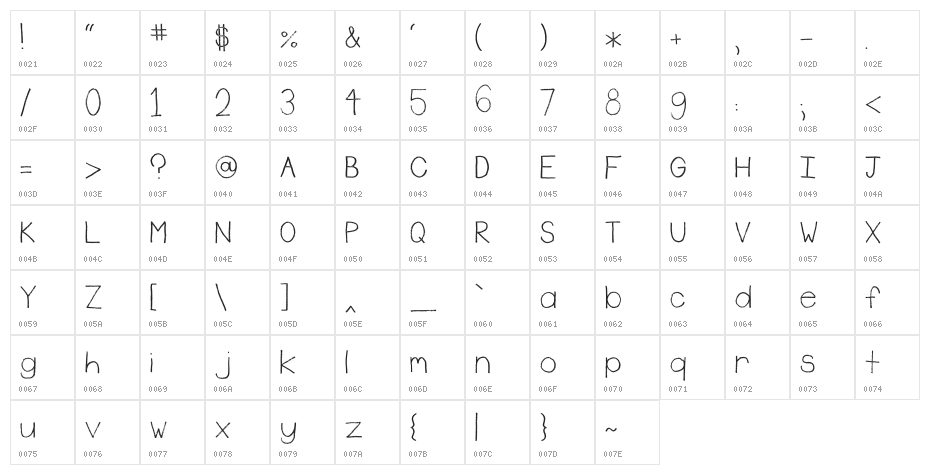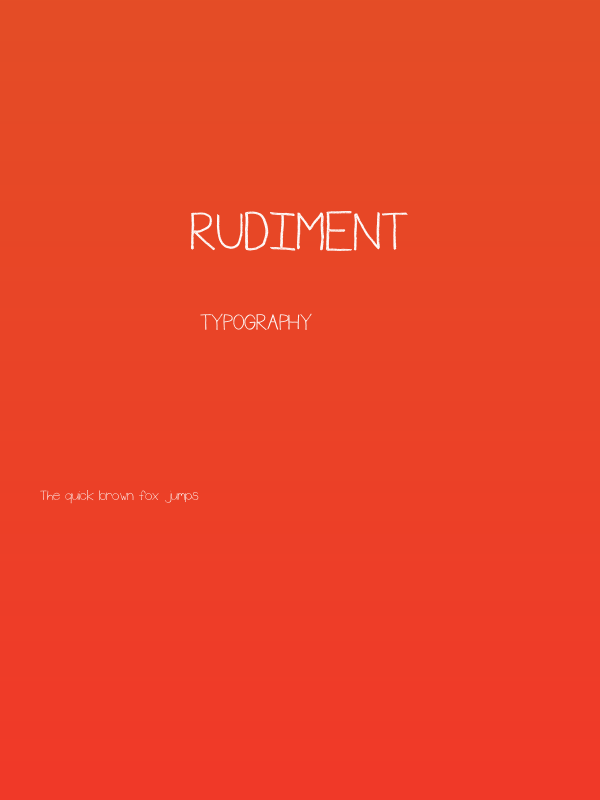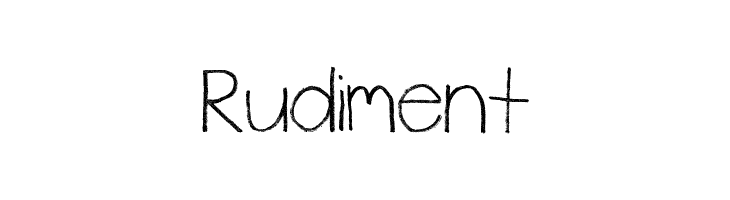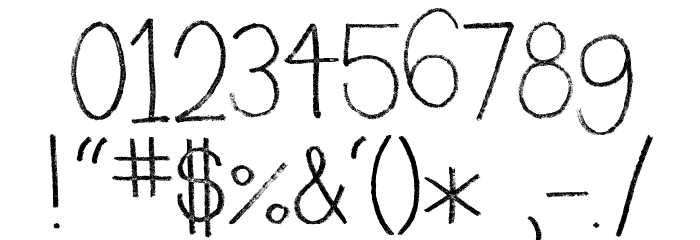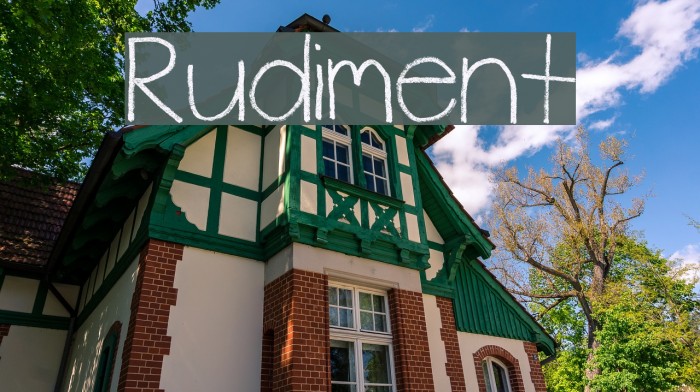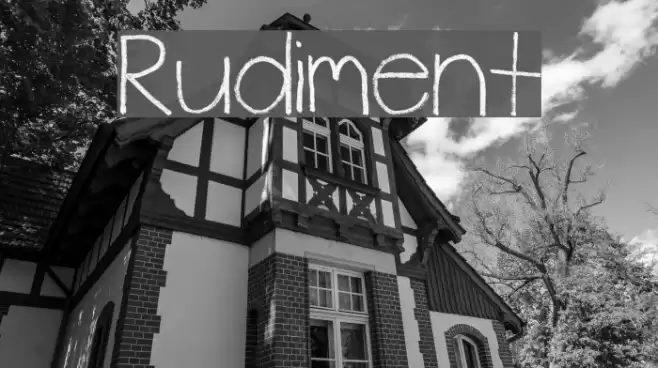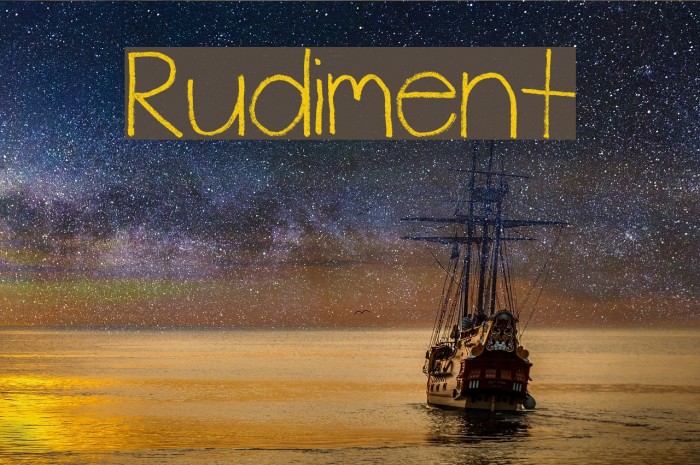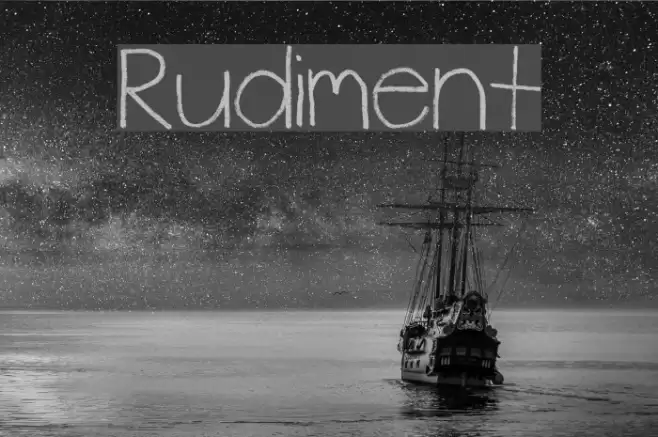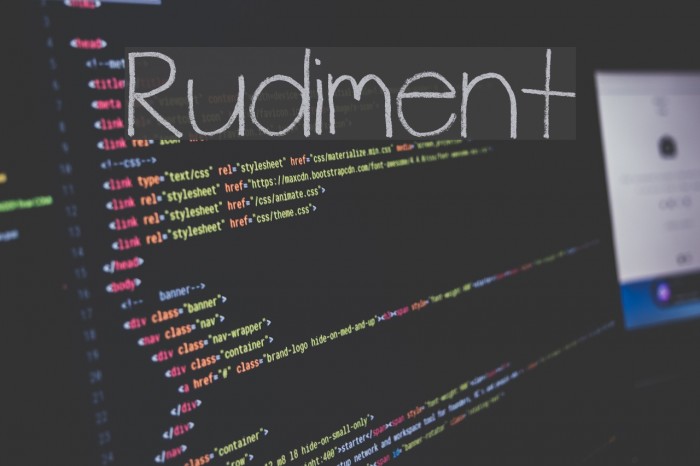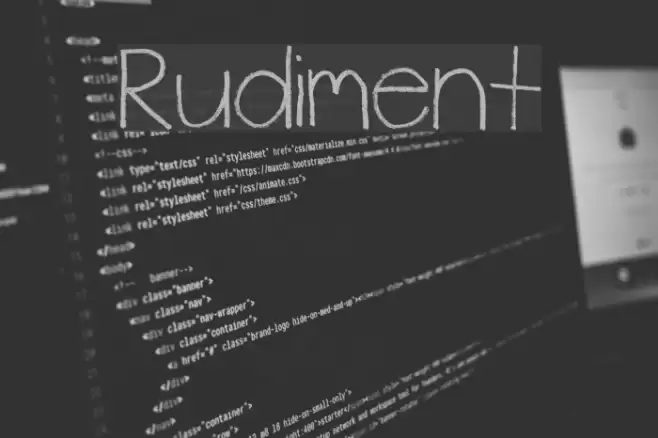
Rudiment Font
Rudiment Description
This font features a hand-drawn, casual style with a playful and informal appearance. The letters are slightly irregular, giving it a natural and organic feel. The strokes are uneven, with a rough texture that adds a sense of authenticity and charm. The uppercase and lowercase letters maintain a consistent style, while the numerals and special characters complement the overall design. This font is well-suited for projects that require a personal touch or a creative, artistic vibe.
| Overall Style | Casual, Artistic |
| Use Case | Headlines, Informal text, Creative projects |
| Proposed Projects | Ideal for greeting cards, children's books, creative posters, and DIY projects. |